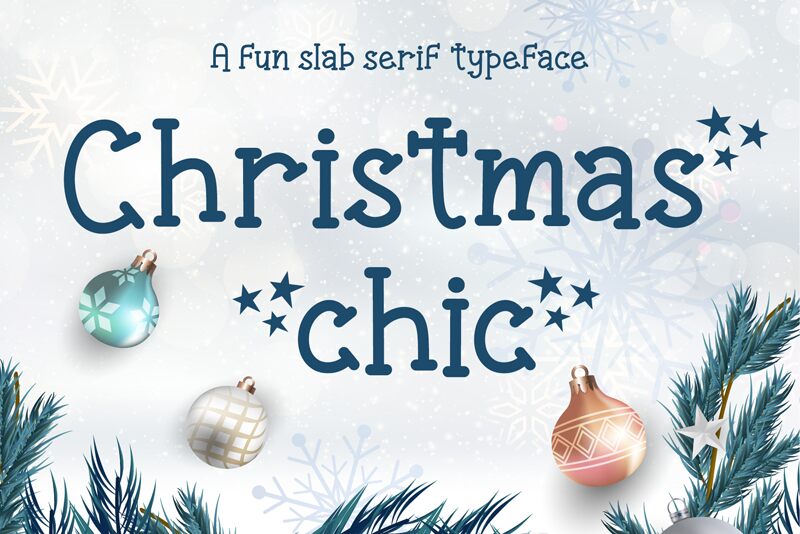
Christmas Chic
Introducing Christmas Chic - a beautiful display font by AEN Creative Studio 2021. This festive script style is perfect for creating unique holiday cards, crafting unique decorations, or adding a cheerful touch to your website.